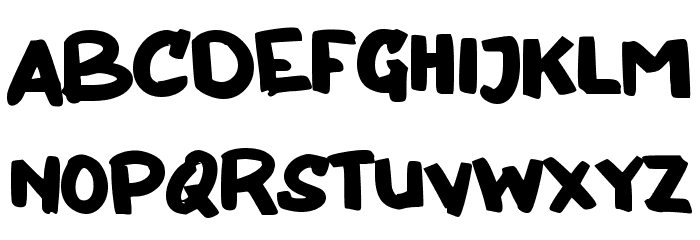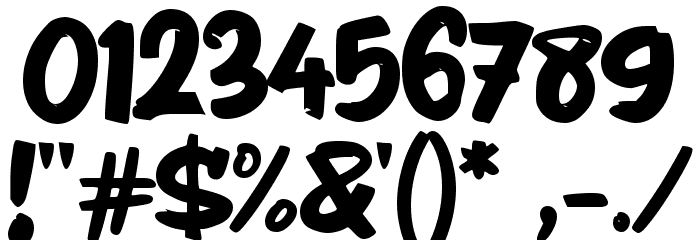
Bertanya Saja Font
This font exudes a bold and energetic style with its thick, brush-like strokes that give it a dynamic and lively appearance. The characters are slightly irregular, adding a playful and informal touch. The uppercase and lowercase letters maintain a consistent weight, creating a cohesive look throughout. The numerals and special characters follow the same bold and expressive style, ensuring uniformity across all elements. This font is perfect for projects that require a fun and attention-grabbing aesthetic, making it ideal for creative designs.
A bold, brush-like font with a playful and dynamic style.
- Font: Bertanya Saja
- Proposed Projects: Ideal for posters, event flyers, children's book covers, and any design needing a lively and informal touch.
- Overall Style: Playful and Energetic
- Use Case: Headlines, Posters, Creative Designs